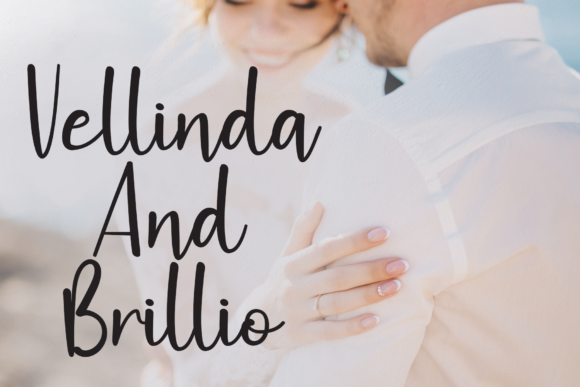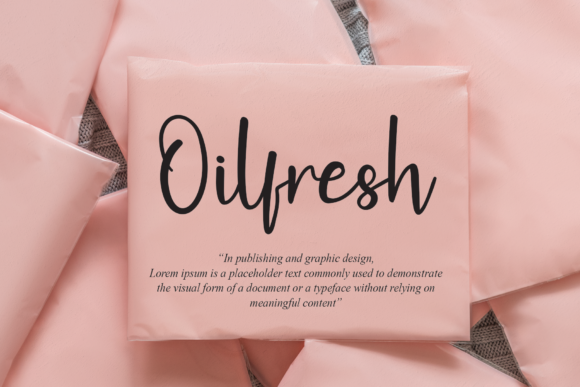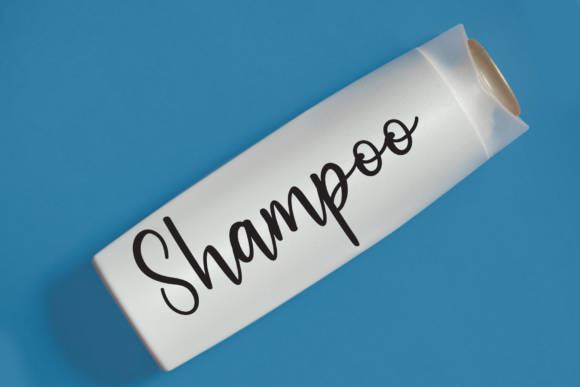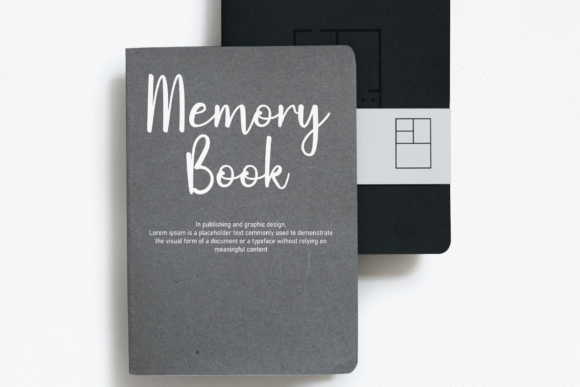
Bellinda Font: A Sweet and Cursive Handwritten Font for Your Design Projects
Bellinda is a beautiful, sweet, and cursive handwritten font that can add a touch of elegance and romance to any design project. This soft font is versatile and can be used on a wide range of design ideas, from wedding invitations and party decorations to branding and advertising materials. In this article, we’ll take a closer look at the Bellinda font, its features, and how you can use it to enhance your design projects.
What is Bellinda Font?
Bellinda is a type of handwritten font that is characterized by its flowing, cursive strokes and soft, rounded edges. It’s a highly legible font that is easy to read, making it perfect for use in a variety of design projects, including body text, headings, and titles. The font is designed to look like it was written with a pen or pencil, giving it a personal and intimate feel that’s perfect for creating a sense of warmth and connection with your audience.
Features of Bellinda Font
The Bellinda font has several features that make it a great choice for designers and crafters. Some of its key features include:
- Sweet and Cursive Design: The font has a sweet and cursive design that’s perfect for creating romantic and feminine designs.
- Soft and Rounded Edges: The font has soft and rounded edges that give it a smooth and elegant look.
- Highly Legible: The font is highly legible, making it easy to read and understand.
- Versatile: The font is versatile and can be used on a wide range of design projects, from wedding invitations to branding materials.
How to Use Bellinda Font in Your Design Projects
The Bellinda font can be used in a variety of design projects, including:
- Wedding Invitations: The font is perfect for creating beautiful and romantic wedding invitations that will set the tone for your special day.
- Party Decorations: The font can be used to create fun and festive party decorations, including banners, signs, and invitations.
- Branding and Advertising: The font can be used to create elegant and sophisticated branding and advertising materials, including logos, brochures, and business cards.
- Digital Designs: The font can be used in digital designs, including social media graphics, blog posts, and website headers.
Tips for Using Bellinda Font
Here are some tips for using the Bellinda font in your design projects:
- Use it with Other Fonts: The Bellinda font can be paired with other fonts to create a unique and interesting design.
- Experiment with Colors: The font looks great in a variety of colors, so don’t be afraid to experiment and find the perfect color for your design.
- Use it to Add a Personal Touch: The font can be used to add a personal touch to your designs, making them more relatable and engaging.
The Bellinda font is a beautiful and versatile font that can add a touch of elegance and romance to any design project. Its sweet and cursive design, soft and rounded edges, and high legibility make it a great choice for designers and crafters. Whether you’re creating wedding invitations, party decorations, or branding materials, the Bellinda font is sure to make your designs stand out. So why not give it a try and see how it can enhance your design projects?